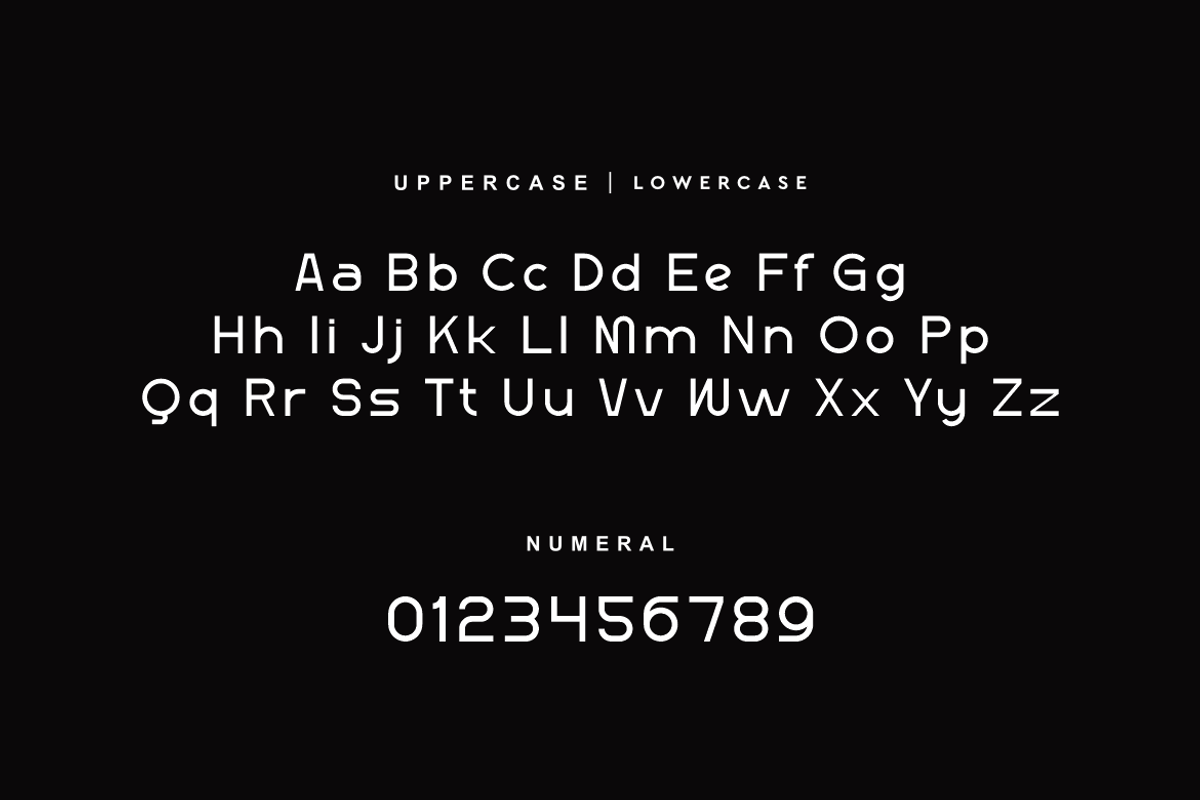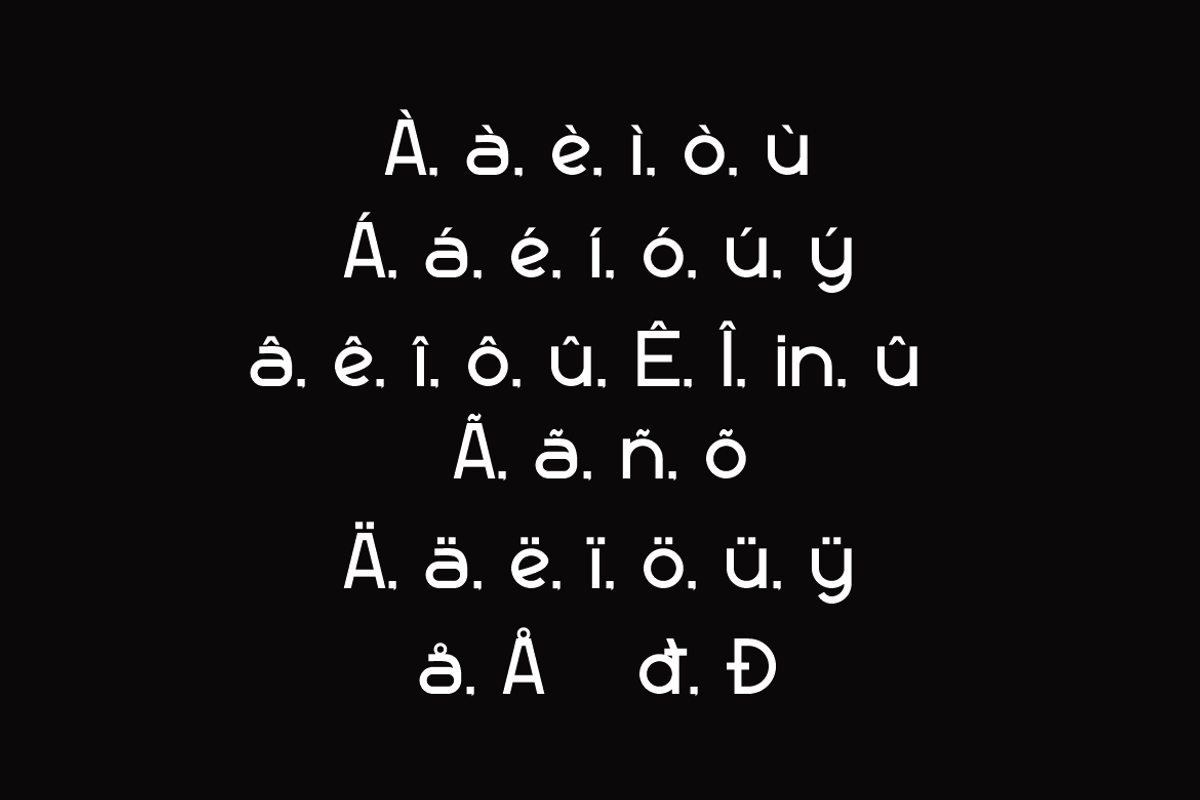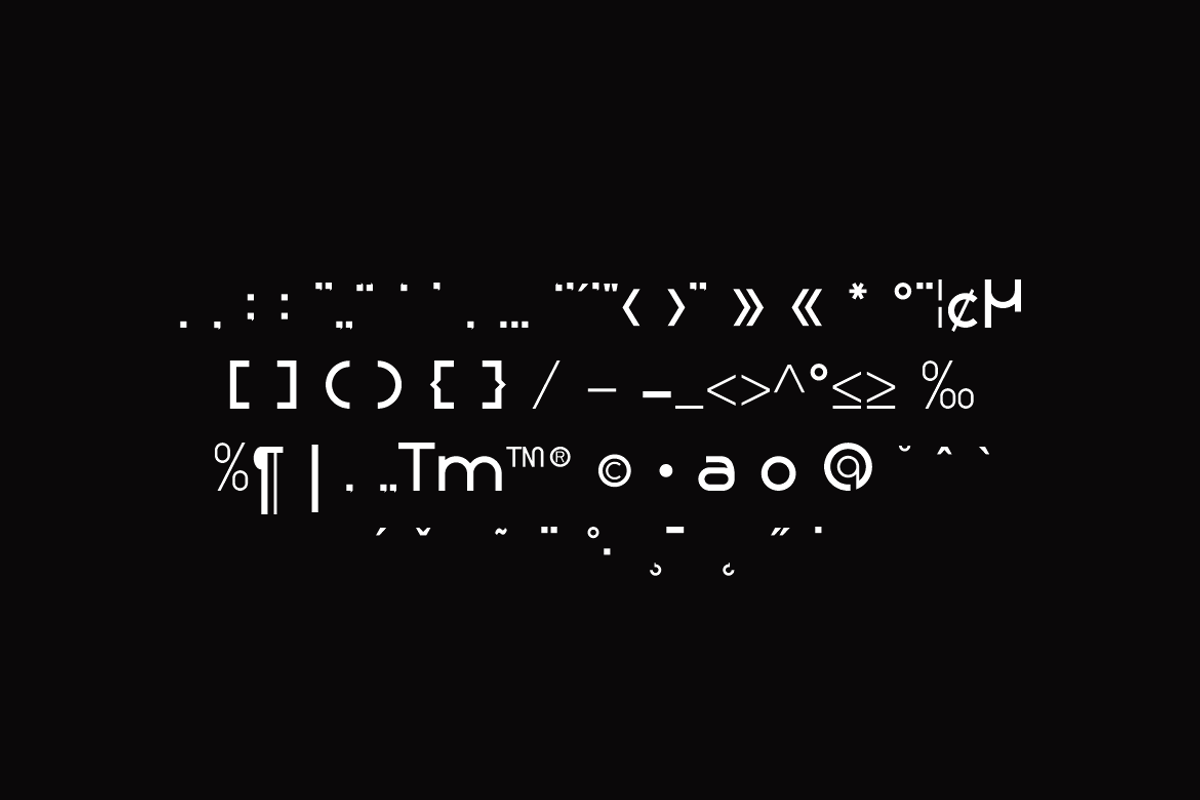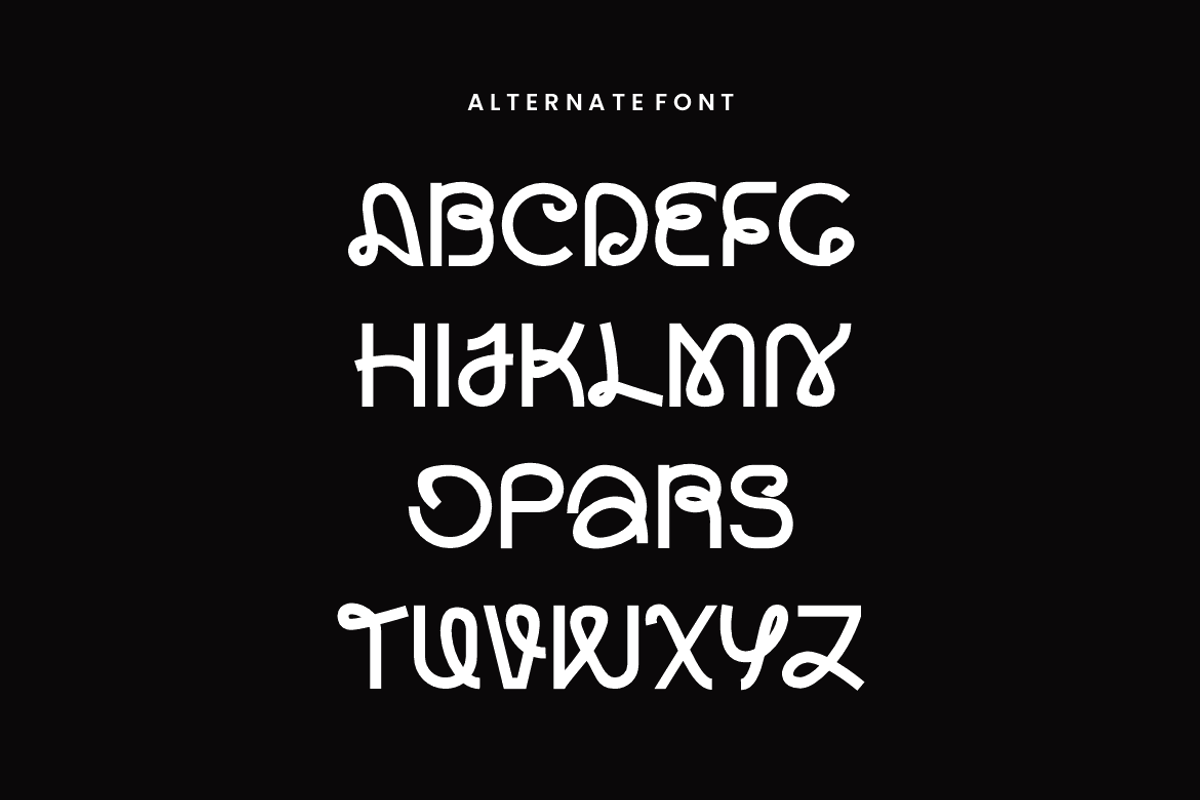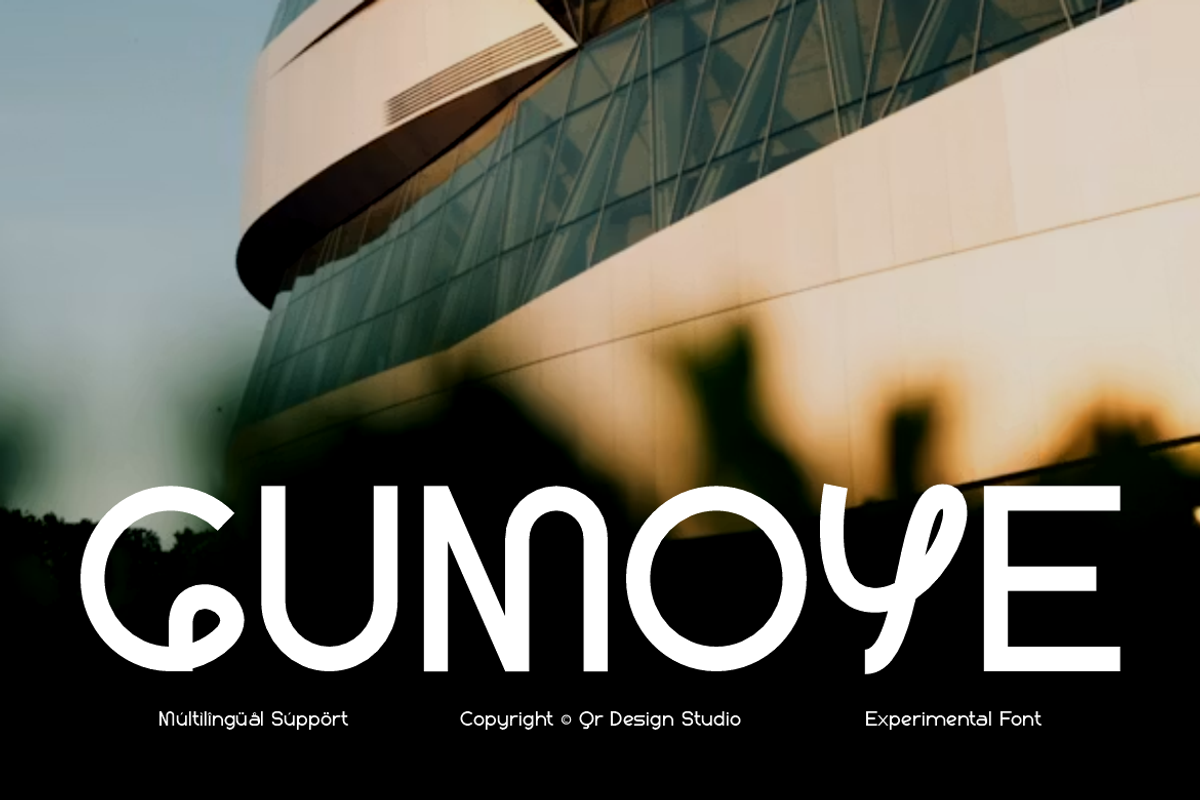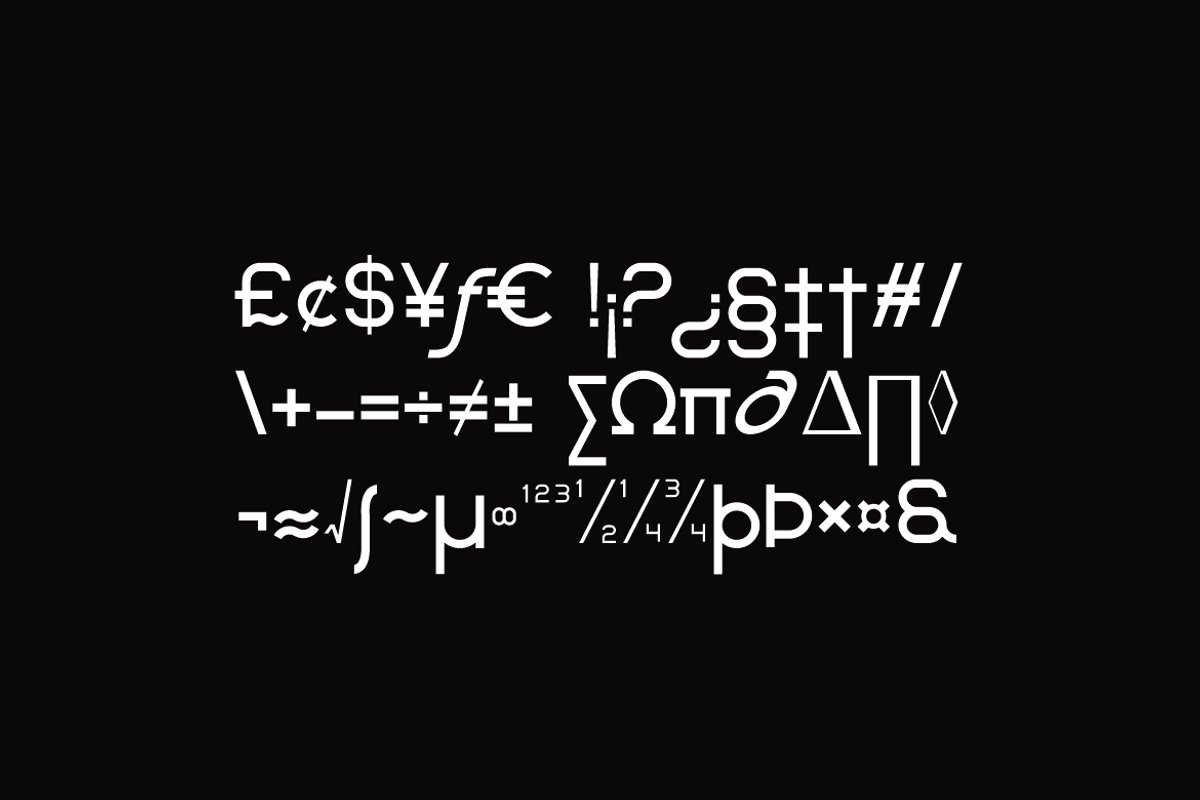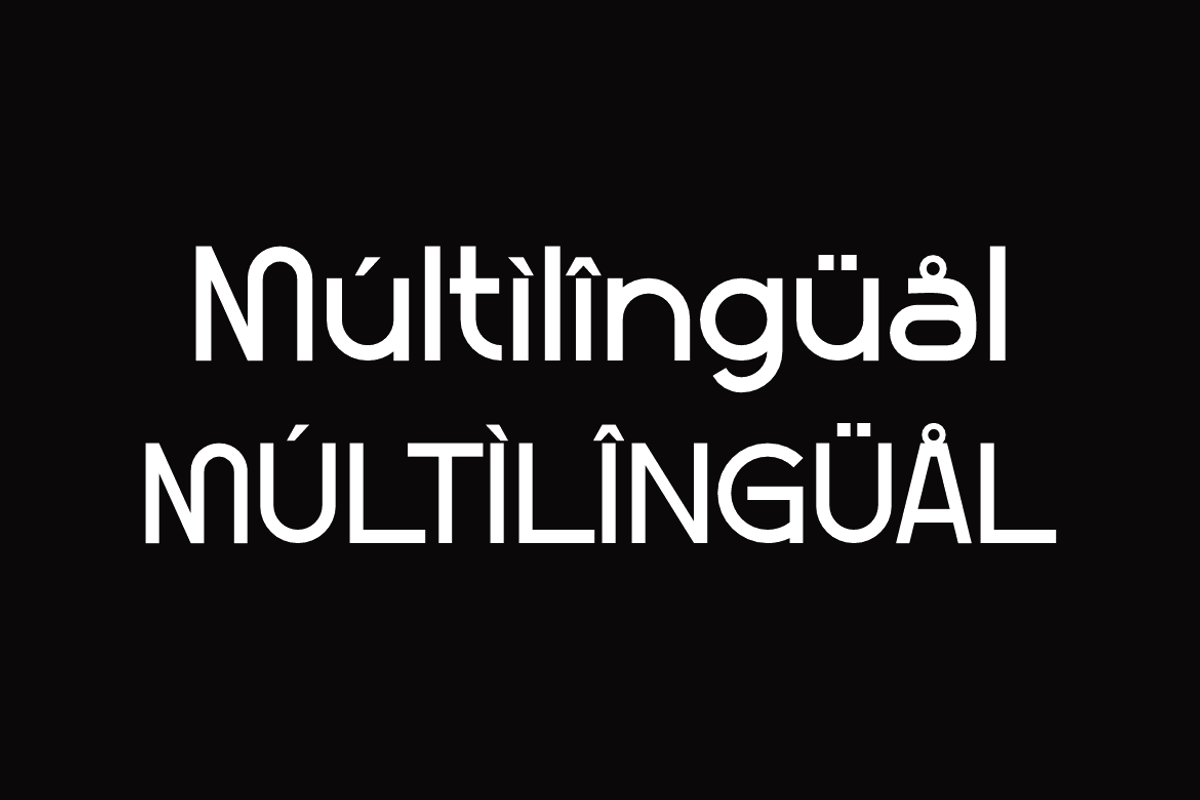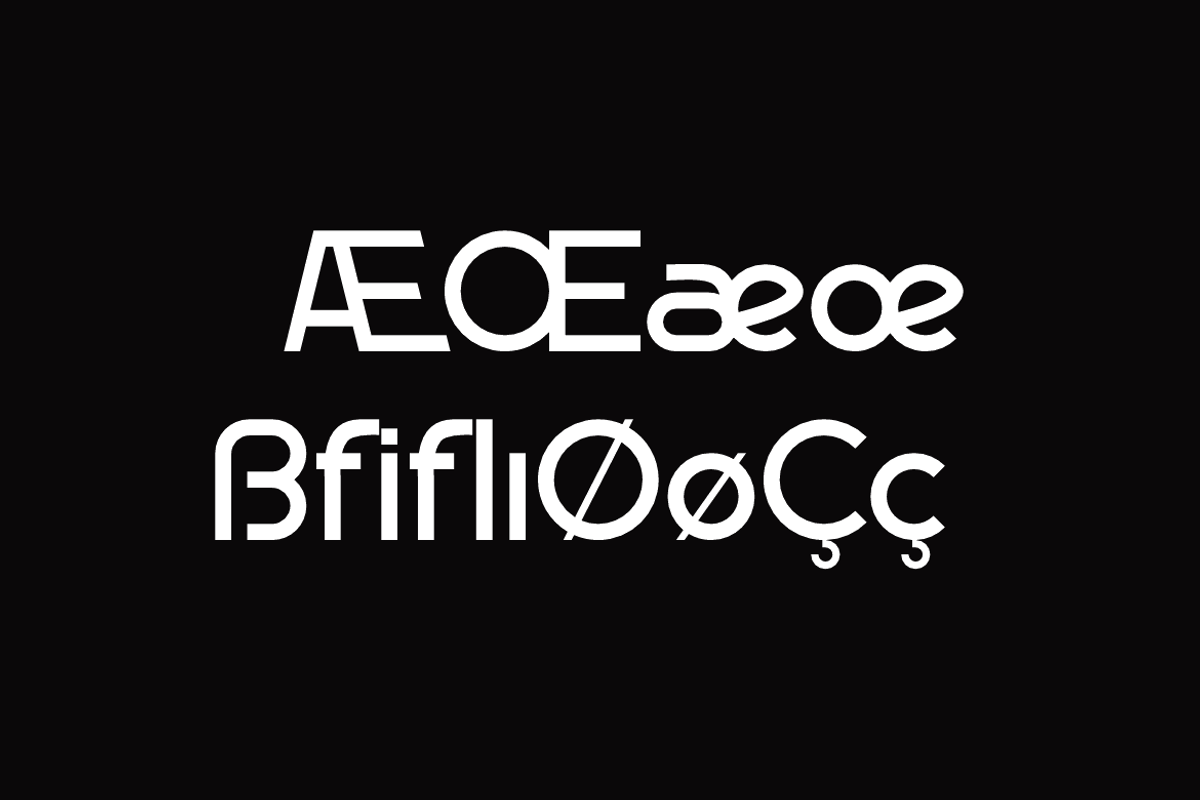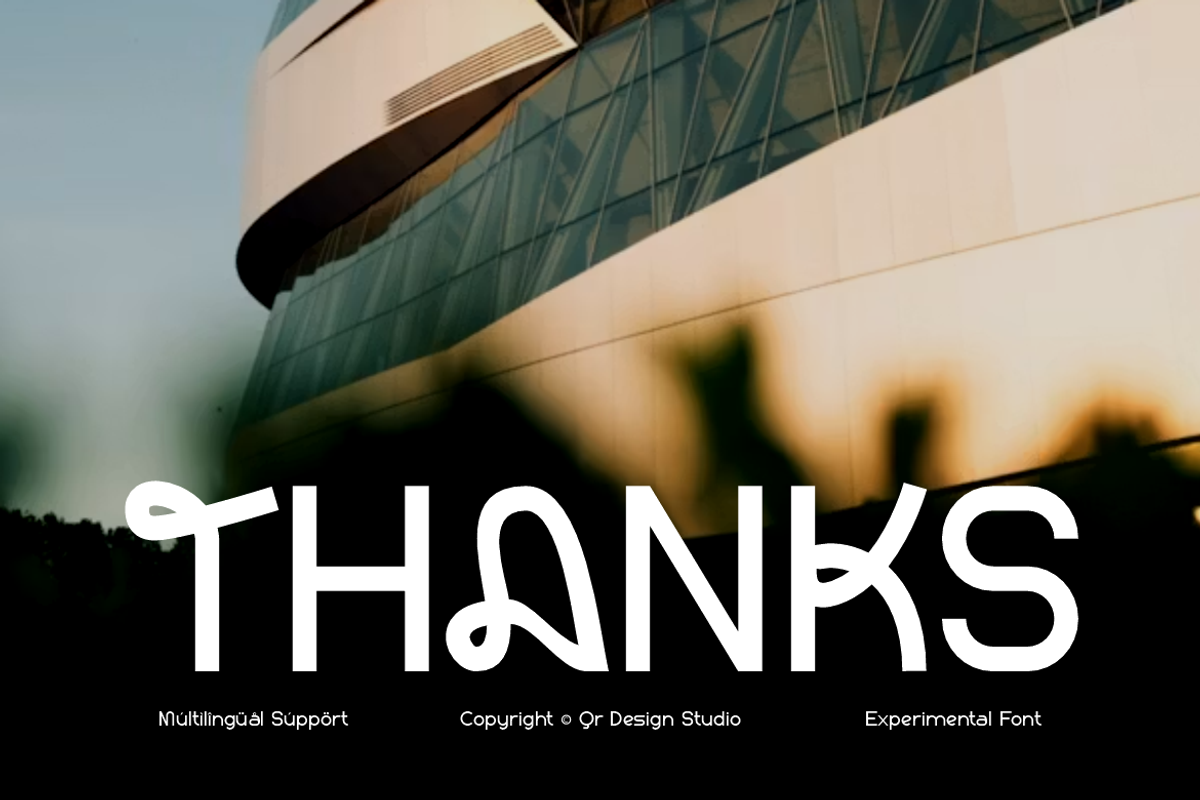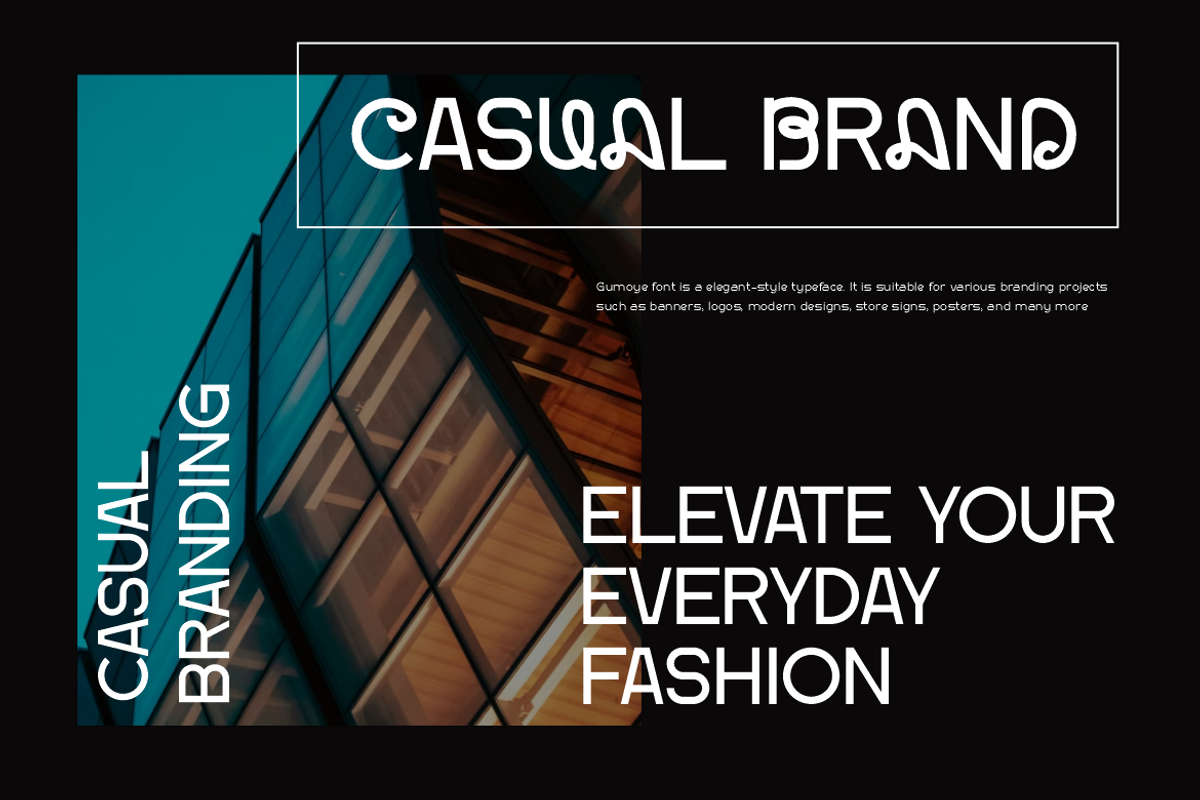
Gumoye Modern Experimental Bold Font
Gumoye Font is a sans serif and authentic display typeface.
It’s perfect for various branding projects such as logos, modern designs,
and more. This font stands out beautifully in a wide range of contexts.